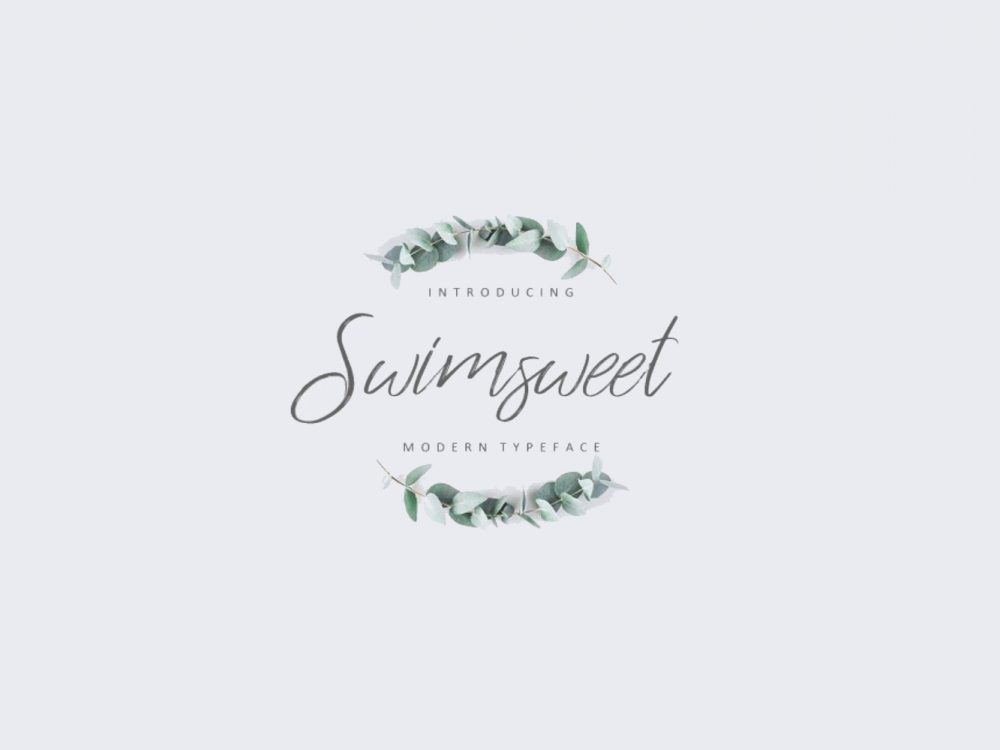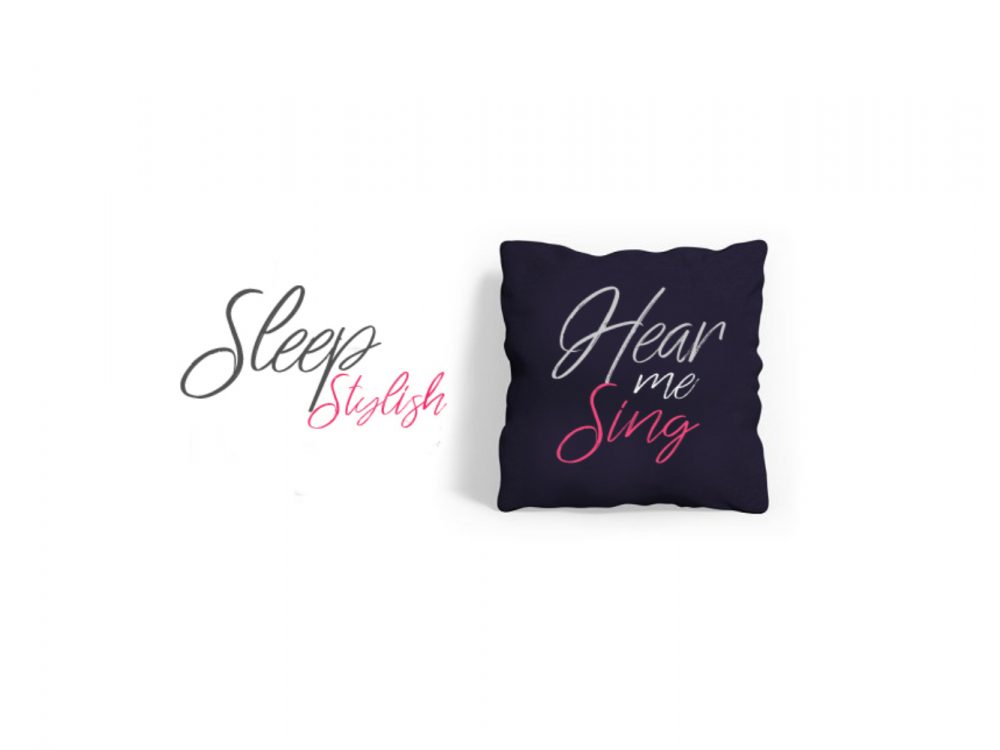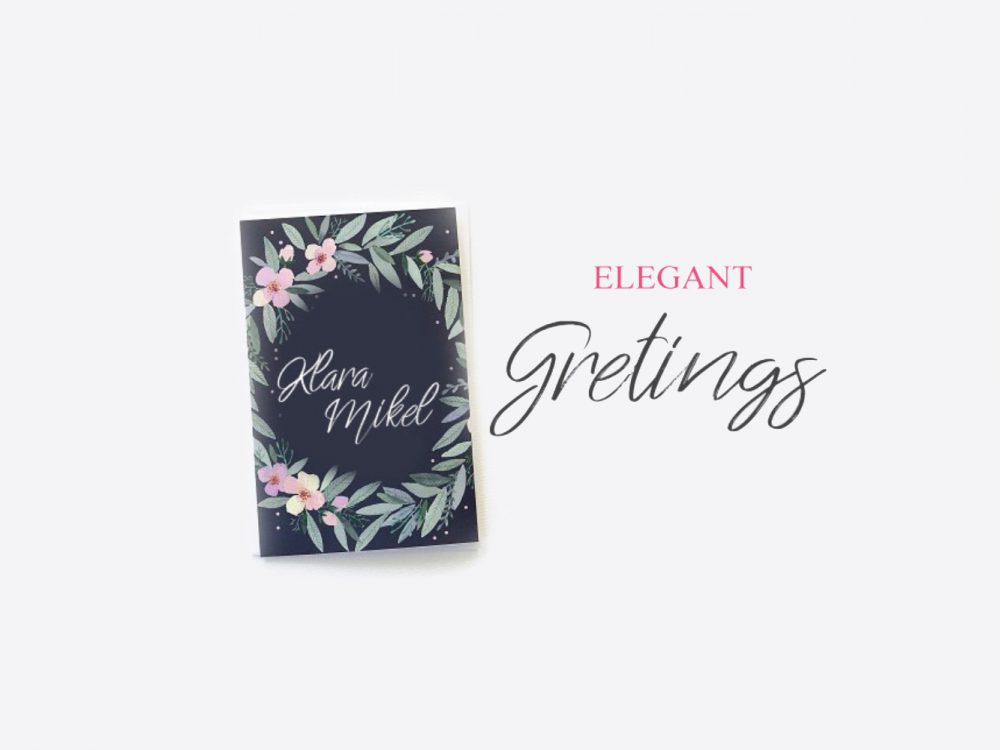
Swimsweet Script Font Demo
If you are looking for an interesting handwritten font then Swimsweet Script Font Demo is perfect for you. This font features an elegant style and is perfect for a variety of design projects such as wedding invitations, greeting cards, posters, prints, and more. If you find this typeface interesting and suitable for your project, make sure to get its full version with the license.